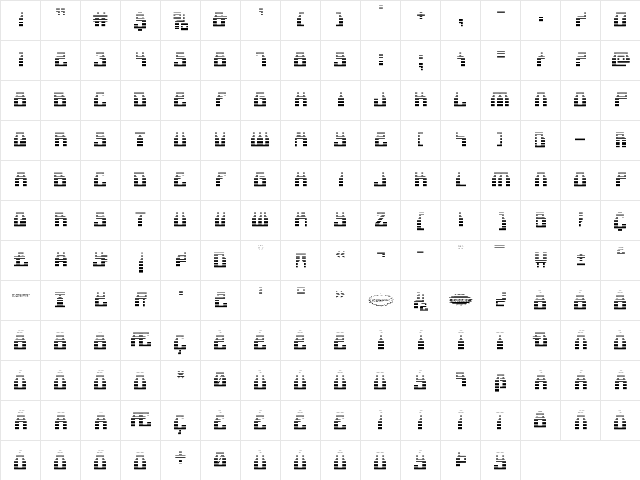
1968 Odyssey Gradient Regular
Design Context for 1968 Odyssey Gradient Typeface
1968 Odyssey Gradient is a composed and adaptable typeface that performs quietly and consistently across a wide range of design contexts.